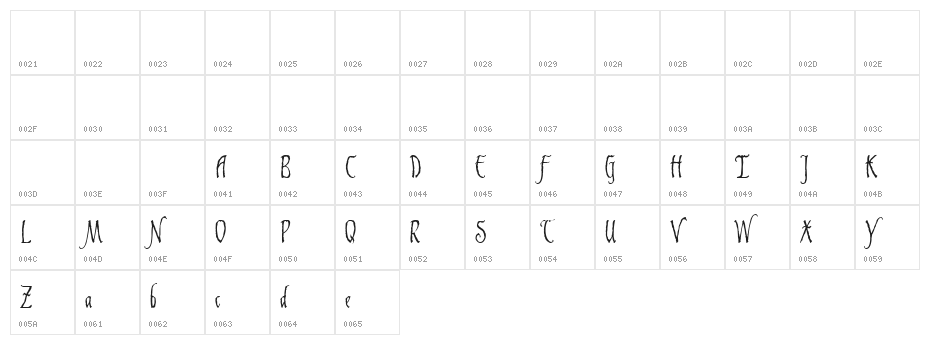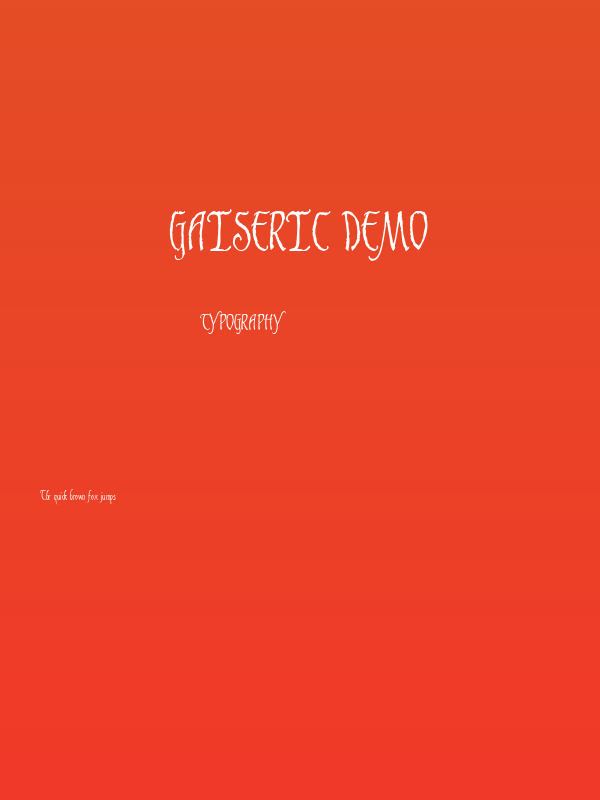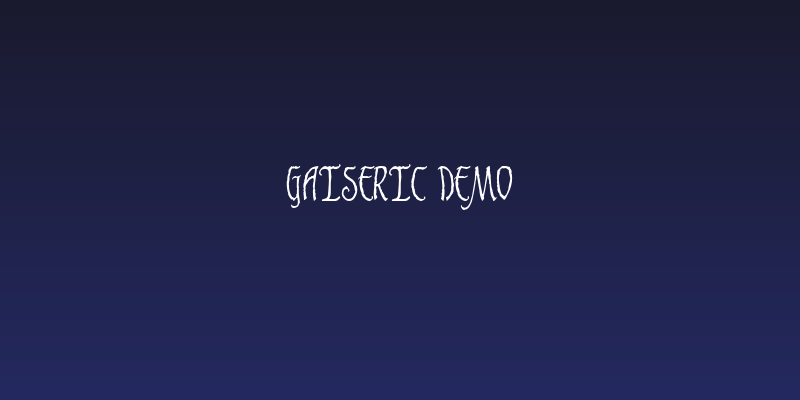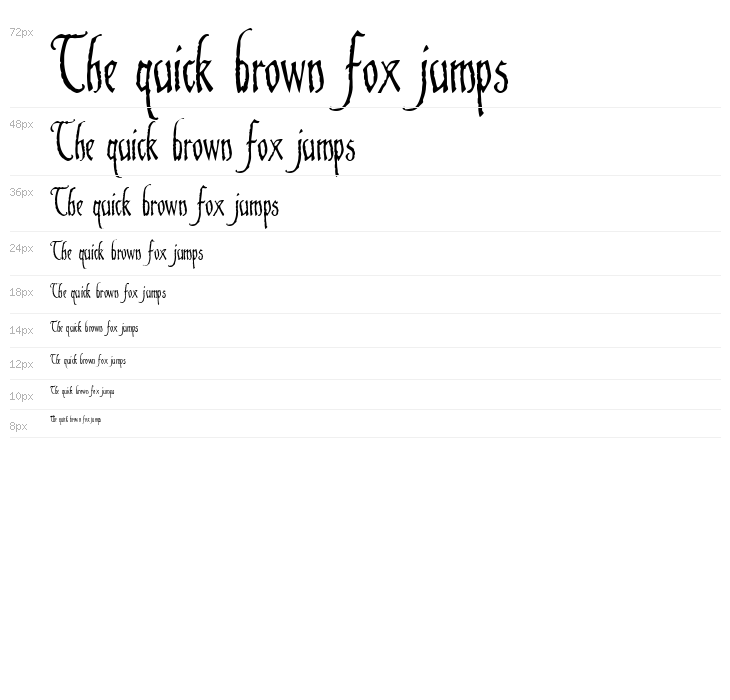
Gaiseric Demo Font
Gaiseric Demo Description
This font features a unique, hand-drawn style with an ancient and rustic appearance. The characters are elongated and slightly irregular, giving them a distinctive, almost mystical quality. The strokes are uneven, with a rough texture that adds to the font's aged look. The uppercase letters are tall and narrow, while the lowercase letters maintain a consistent style, complementing the uppercase with their own quirky charm. The numbers and special characters follow the same design principles, ensuring a cohesive look across all elements.
| Proposed Projects | Ideal for fantasy-themed projects, historical documents, book covers, or any design requiring an ancient or mystical touch. |